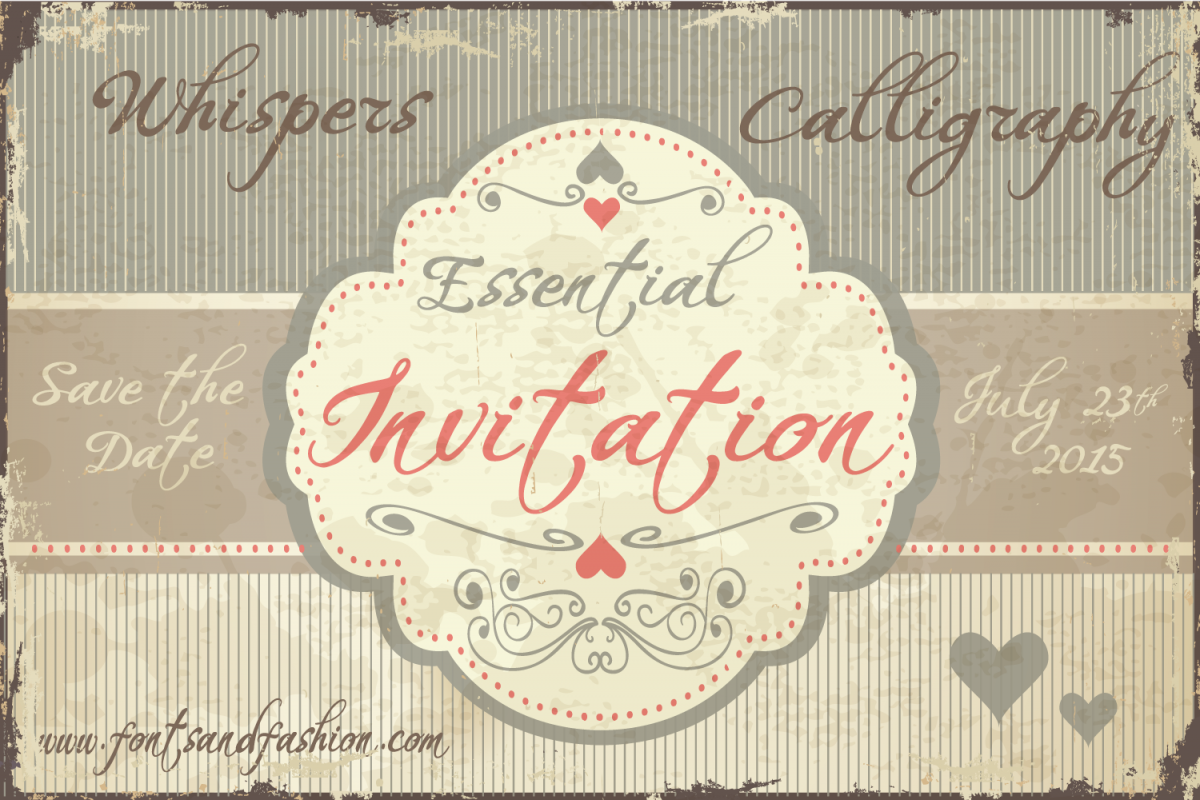
Whispers Calligraphy Essential
WHISPERSCALLIGRAPHY_essential-Regular
“WHISPERS CALLYGRAPHY_essential” font, combines calligraphic grace and sophisticated elegance, created with readability in mind. A perfect balance between casual handwriting and careful calligraphy, make it both approachable and inspirational. “WHISPERS CALLYGRAPHY_essential” is a semi-connected script whose slim strokes, gently curving verticals, airy lines, and big, beautiful capitals convey their own inclination to a sensual, feminine and fashionable style. This sophisticated feminine nature favors it in creating settings for fashion magazines, invitations to wedding events , for elegant headers or simply to give a touch of class to any layout for packaging.
Whispers Calligraphy Essential